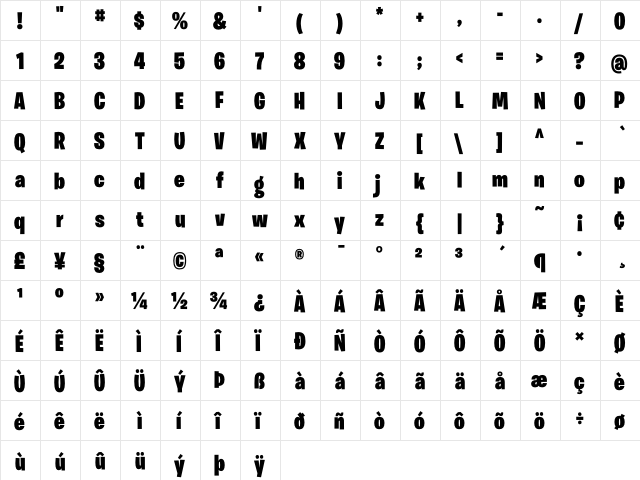
Burbank Big Condensed Black
| Foundry | House Industries |
| Designer | Tal Leming |
Design Context for Burbank Big Condensed Typeface
Burbank Big Condensed is a composed and adaptable typeface that performs quietly and consistently across a wide range of design contexts. The condensed width makes it efficient for tight spaces without sacrificing legibility.